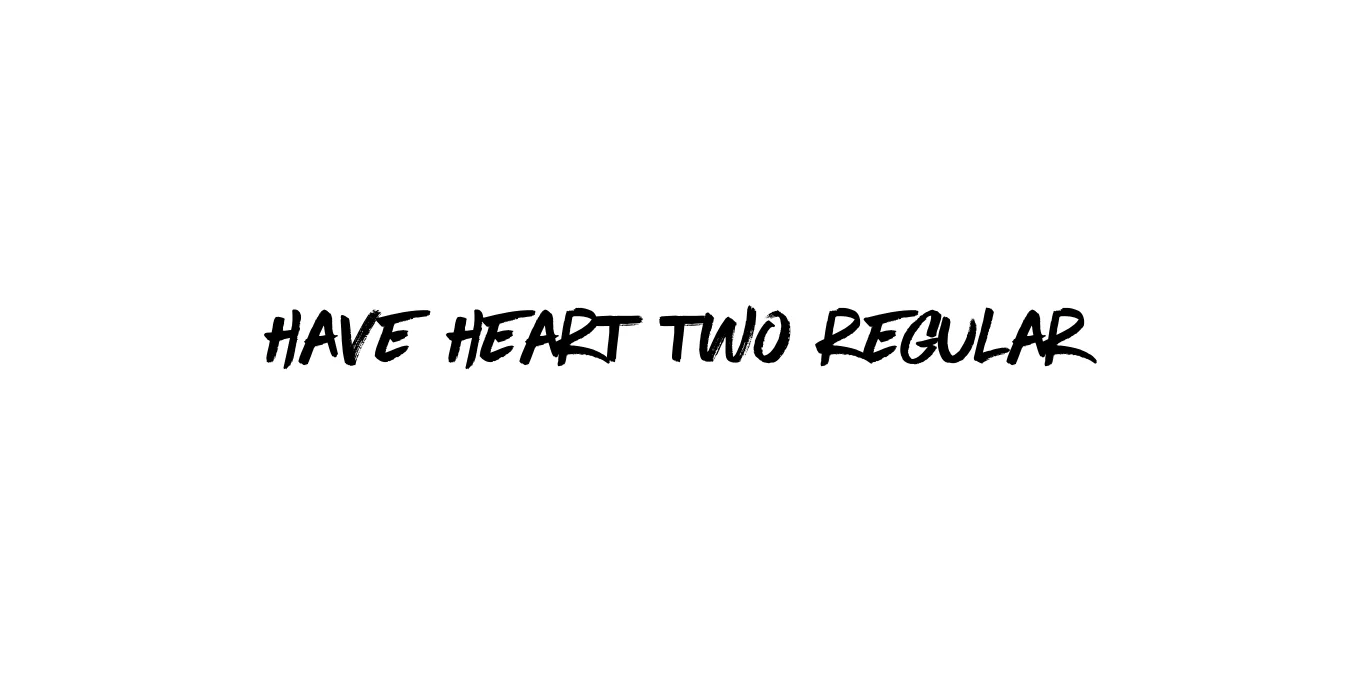
Have Heart Two Regular
Designed by Sam Parrett
Have Heart Two Regular is a beautifully crafted hand-made marker font designed by the renowned Sam Parrett of Set Sail Studios. This typeface is part of a larger set designed to offer a rustic and authentic hand-lettered aesthetic, making it a standout choice for designers looking to inject personality and energy into their projects. The font features high-quality textures that mimic the natural flow of a felt-tip marker, ensuring that every character feels unique and handmade.
As a key component of the Have Heart family, this version is specifically tailored for those who need a more impactful, brush-style appearance. It is widely celebrated in the design community for its versatility in high-end branding, social media graphics, and creative advertising. Whether used for bold headlines or delicate decorative accents, it maintains a consistent level of legibility while preserving its distinct artistic charm.
Have Heart Two Regular Best Uses
Ideal for creating unique logos and identity systems that require a personal touch.
Perfect for eye-catching Instagram quotes and Facebook graphics.
Adds a handmade, artisanal feel to product labels and boxes.
Works exceptionally well for t-shirt slogans and streetwear design.